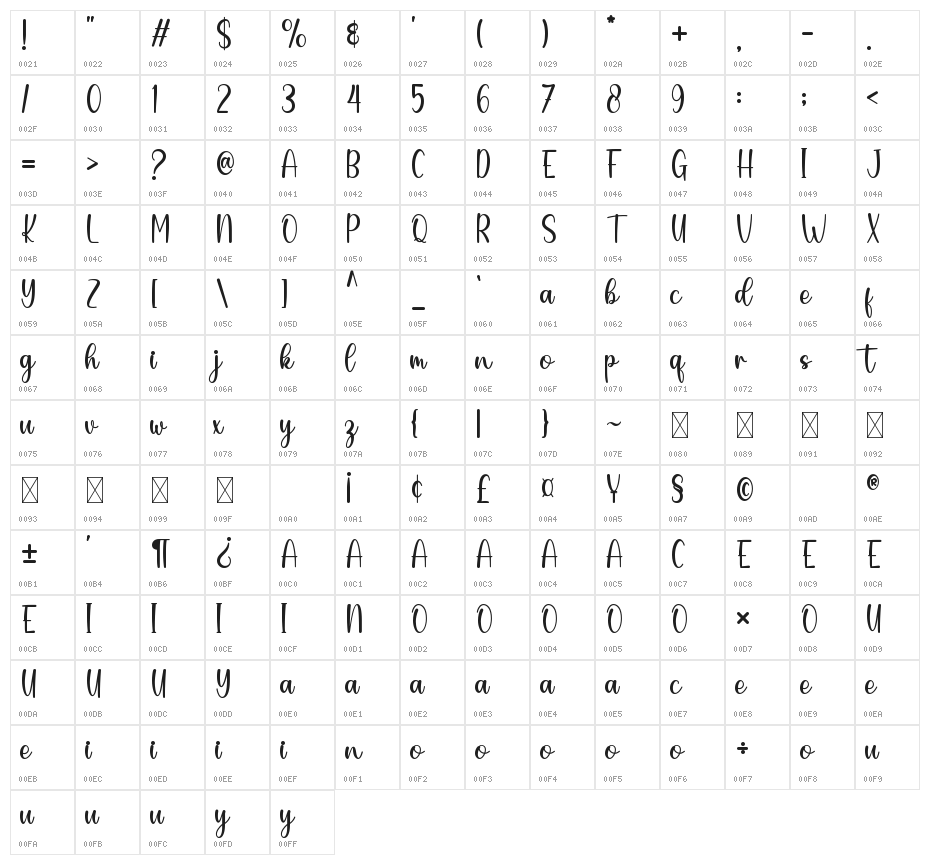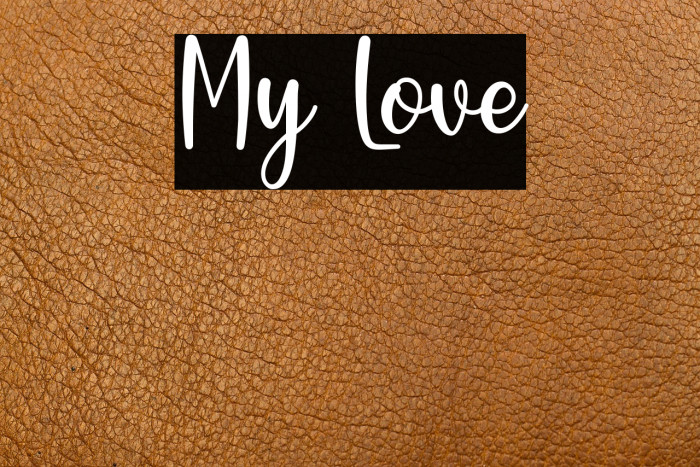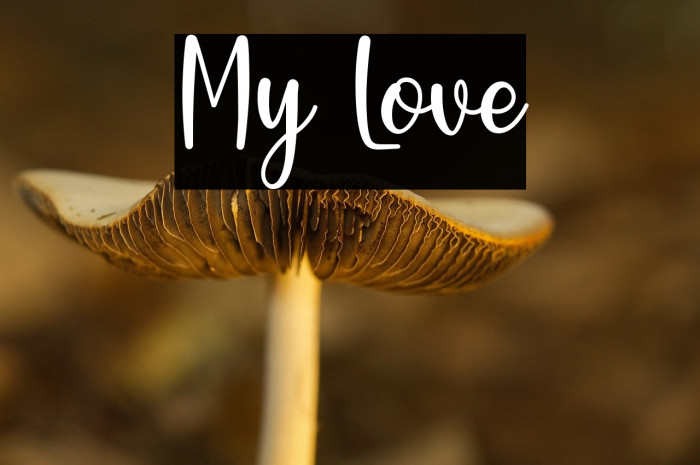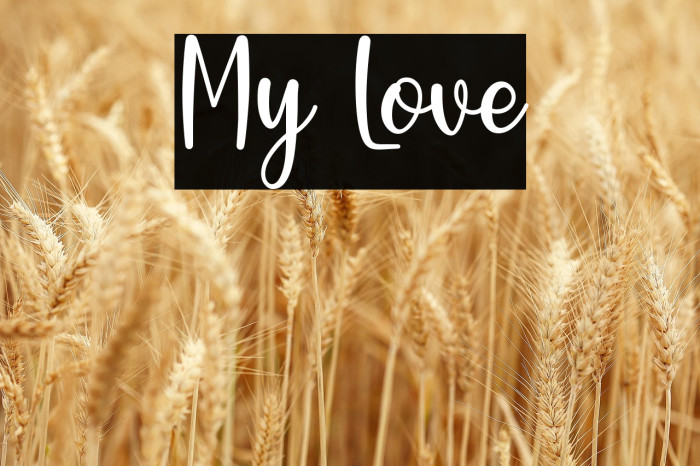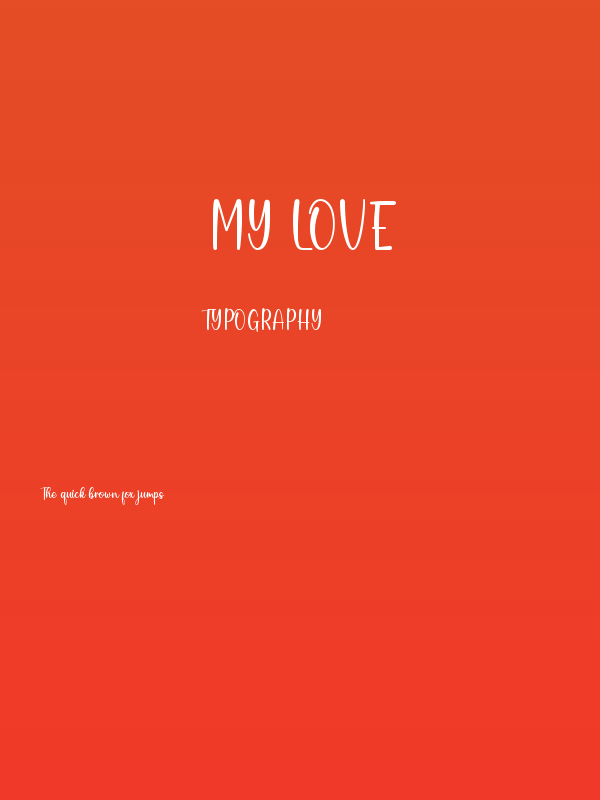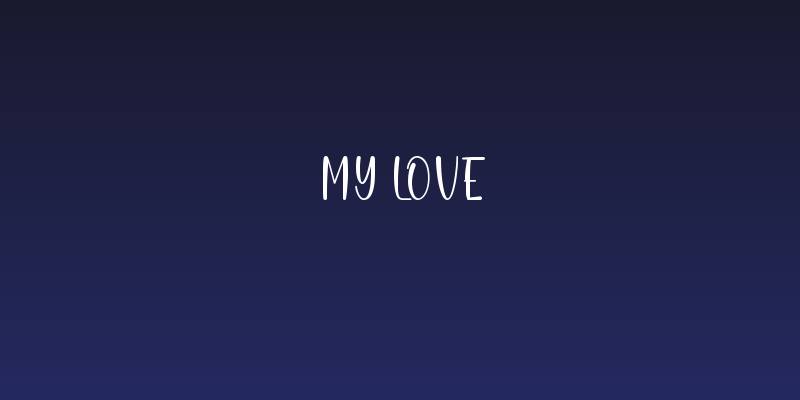
My Love Font
My Love Description
A playful and casual handwritten font with a modern touch, featuring smooth curves and a friendly appearance.
| Overall Style | Casual and friendly |
| Use Case | Headlines, Invitations, Greeting cards |
| Proposed Projects | Greeting cards, invitations, personal branding. |